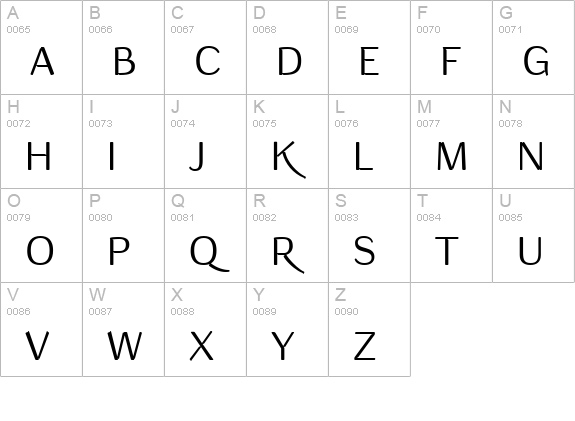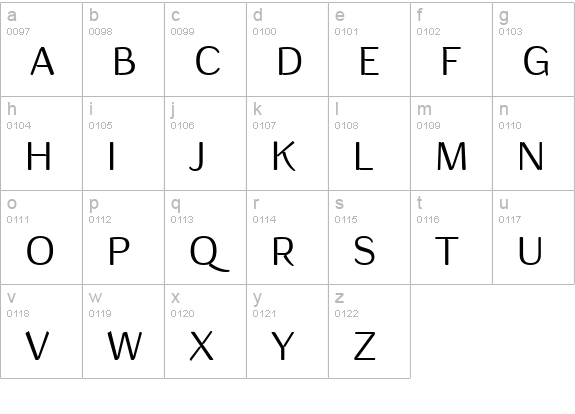
Conceal Font Details
Conceal font is a versatile and elegant typeface that exudes sophistication and modernity. With its clean lines and subtle curves, Conceal font is perfect for a wide range of design projects, from branding to editorial design. Its sleek and contemporary look makes it a popular choice for designers looking to add a touch of style to their work. The best part? Conceal font is available for free download at FontsMarket.com. This means you can access this stunning typeface at no cost, making it a budget-friendly option for all your design needs. Whether you're working on a professional project or a personal creative endeavor, Conceal font is sure to elevate your designs and make a lasting impression. Download now and unleash the creative potential of Conceal font in your next project!